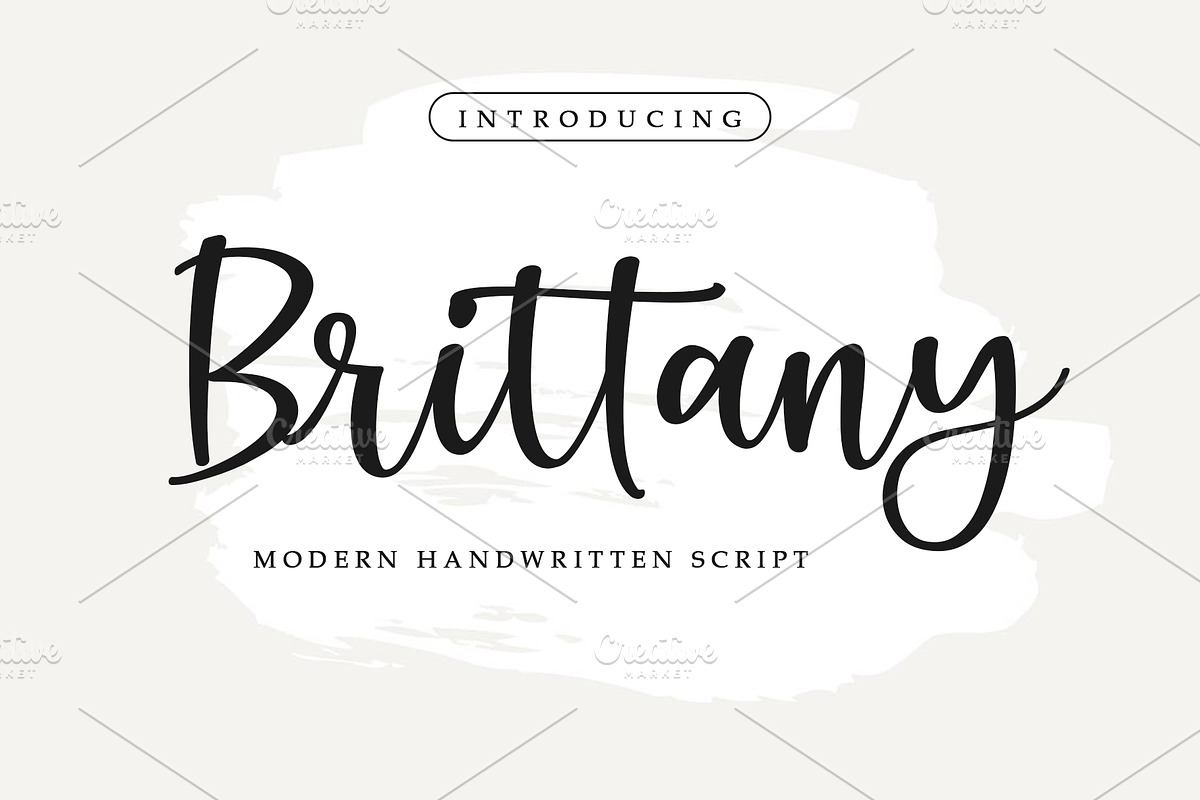
Brittany - Handwritten Script Font Free Download
Brittany – Handwritten Script Font Free Download is a graceful and modern calligraphy typeface that captures the essence of handwritten elegance. Please note, you are required to purchase this font for commercial use. It is available for free download for testing and personal projects only.
With its fluid strokes, natural flow, and stylish swashes, Brittany is perfect for wedding invitations, branding, logos, social media graphics, product packaging, and any design that calls for a personal, feminine touch. It’s effortlessly beautiful and easy to read—ideal for heartfelt and high-end projects alike.